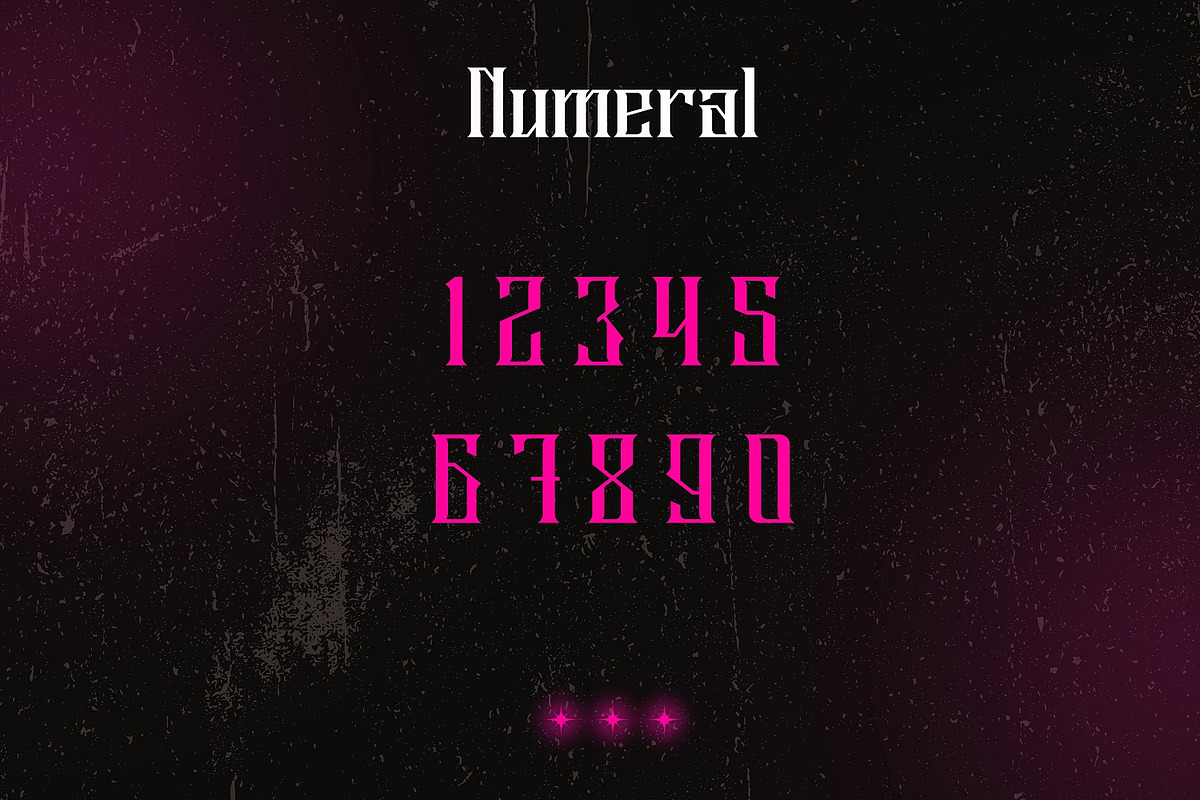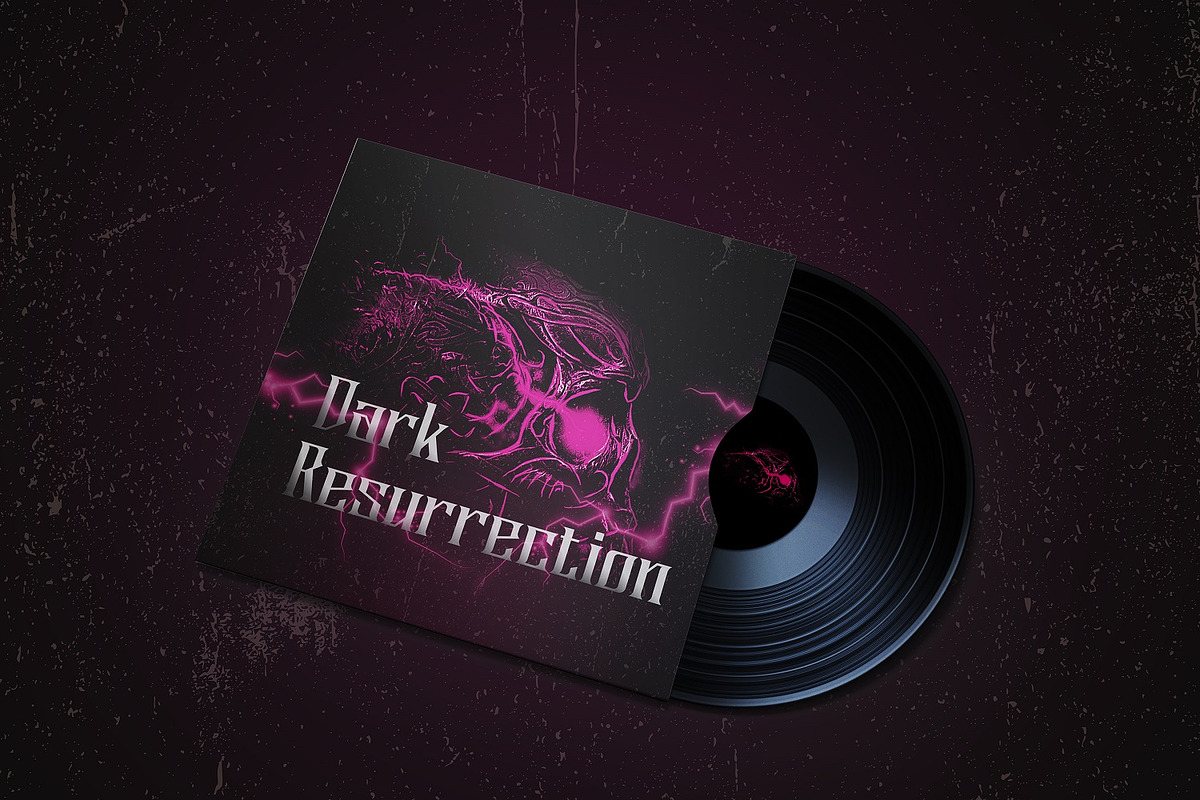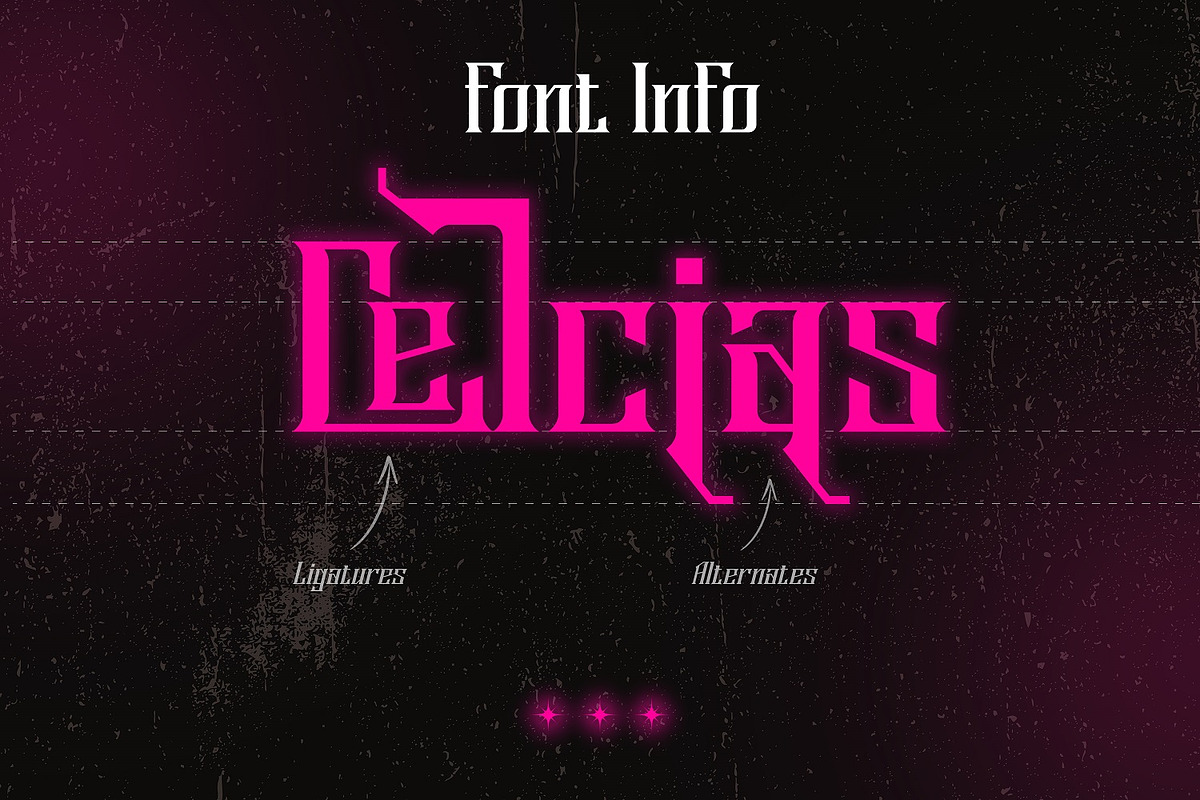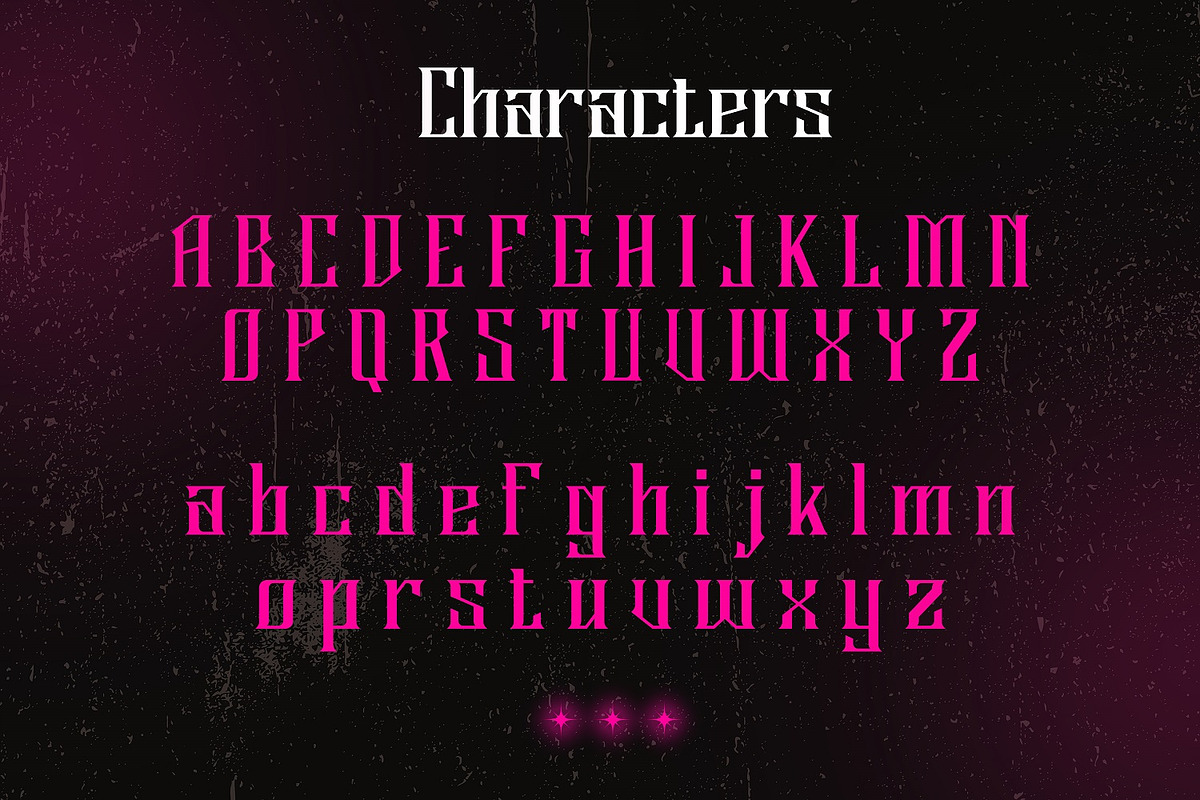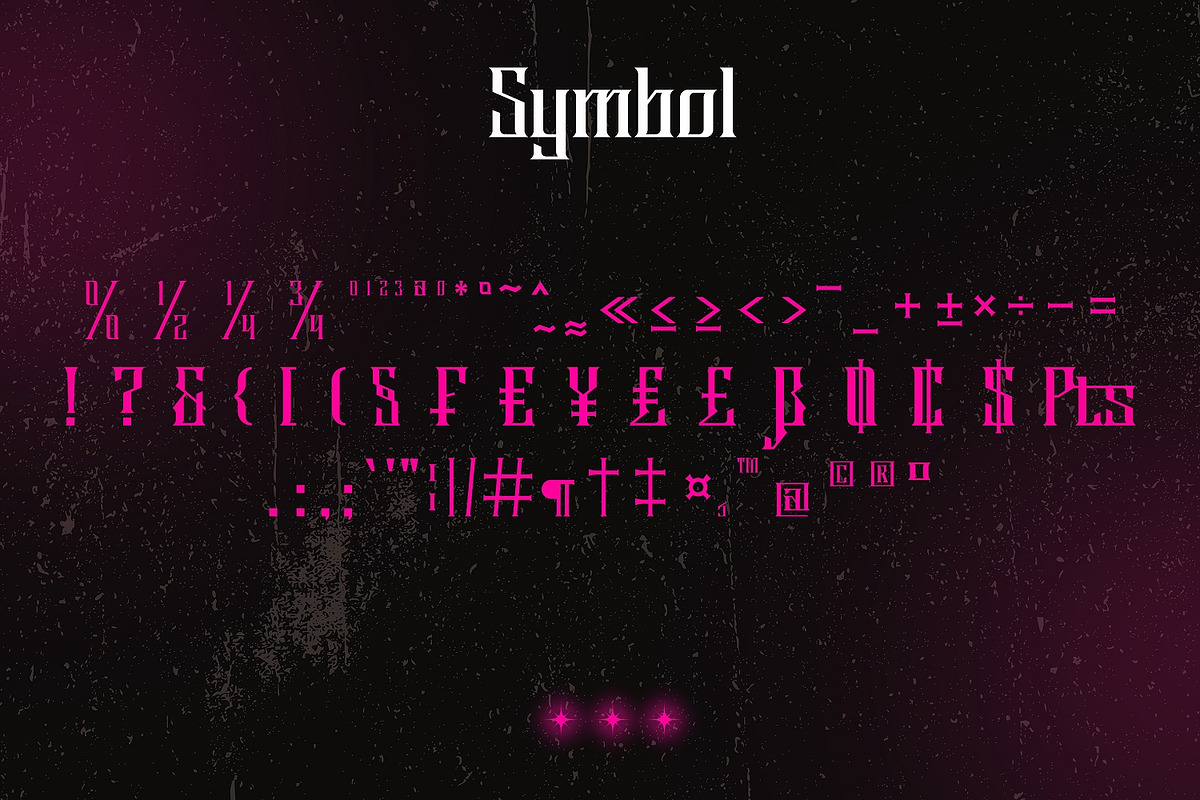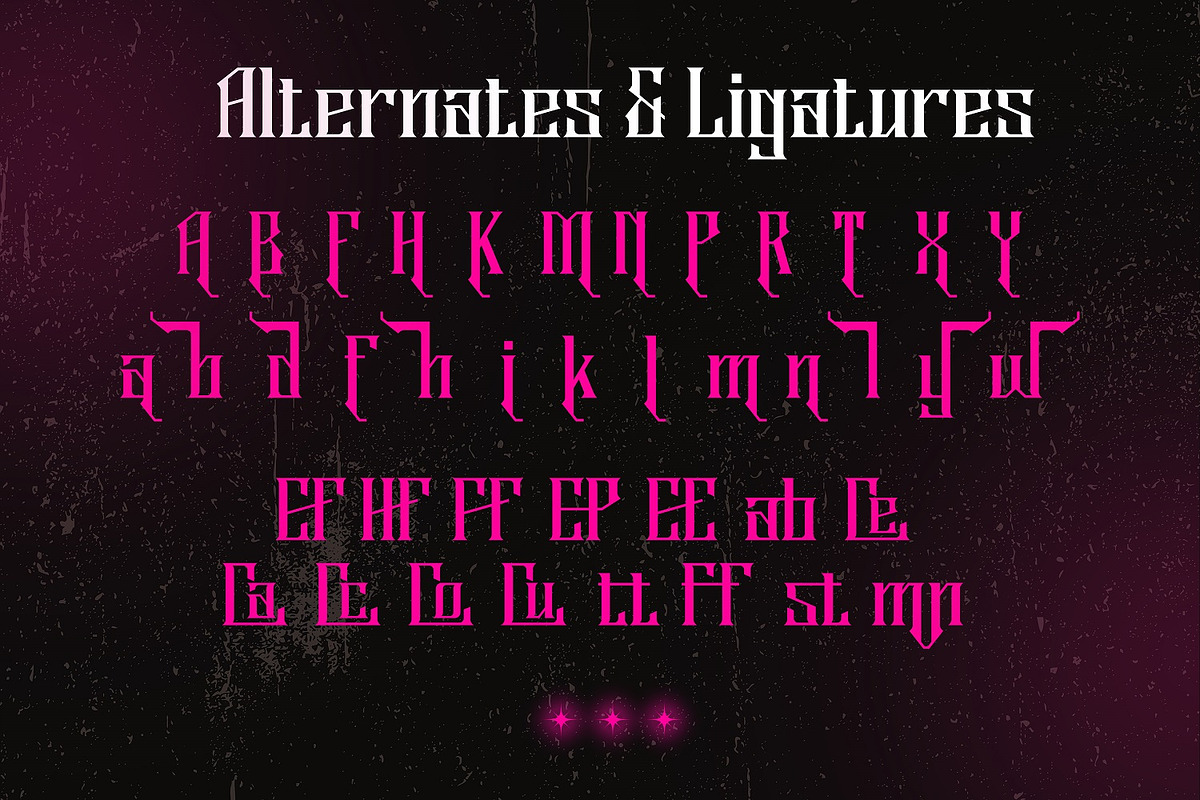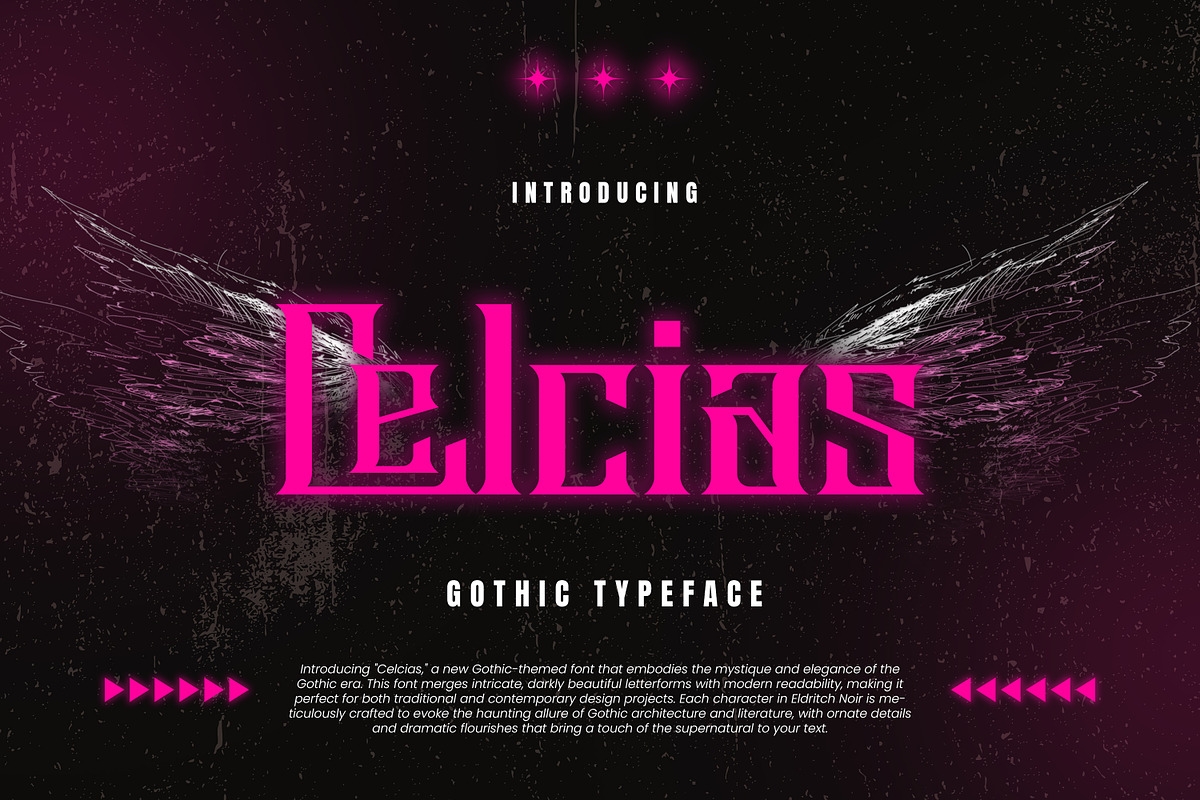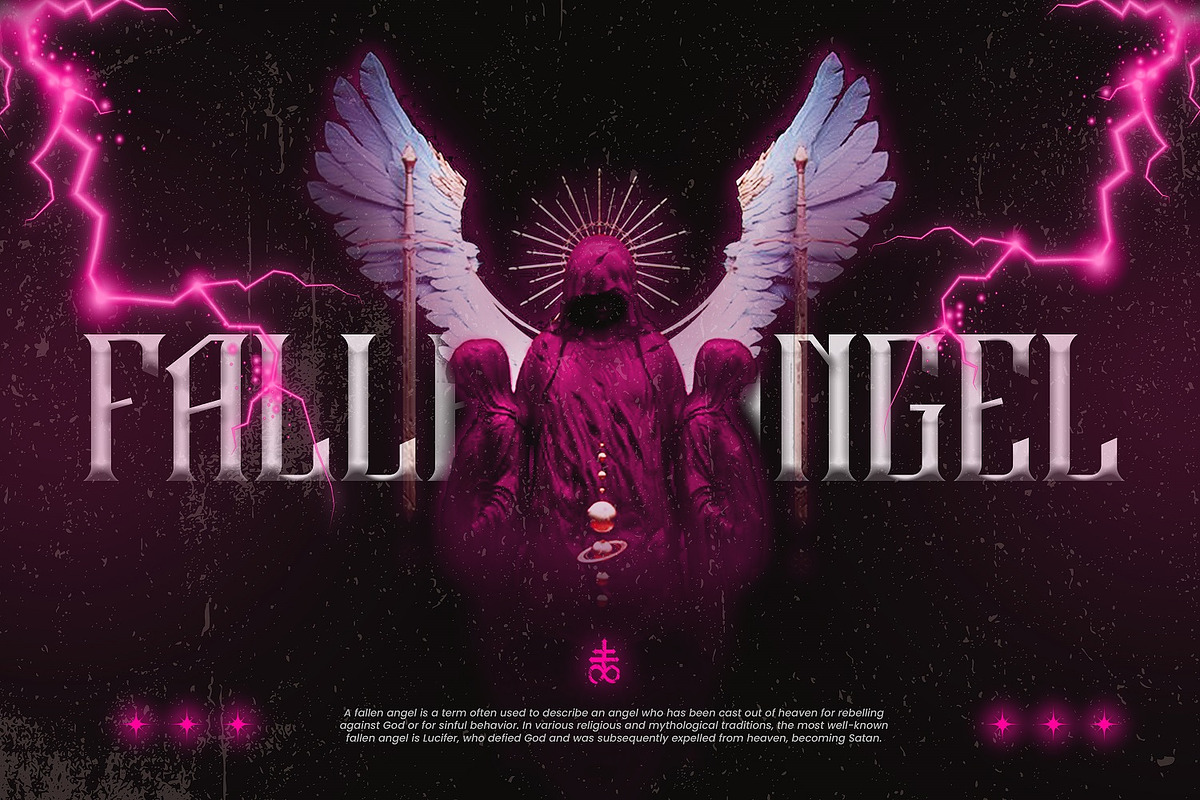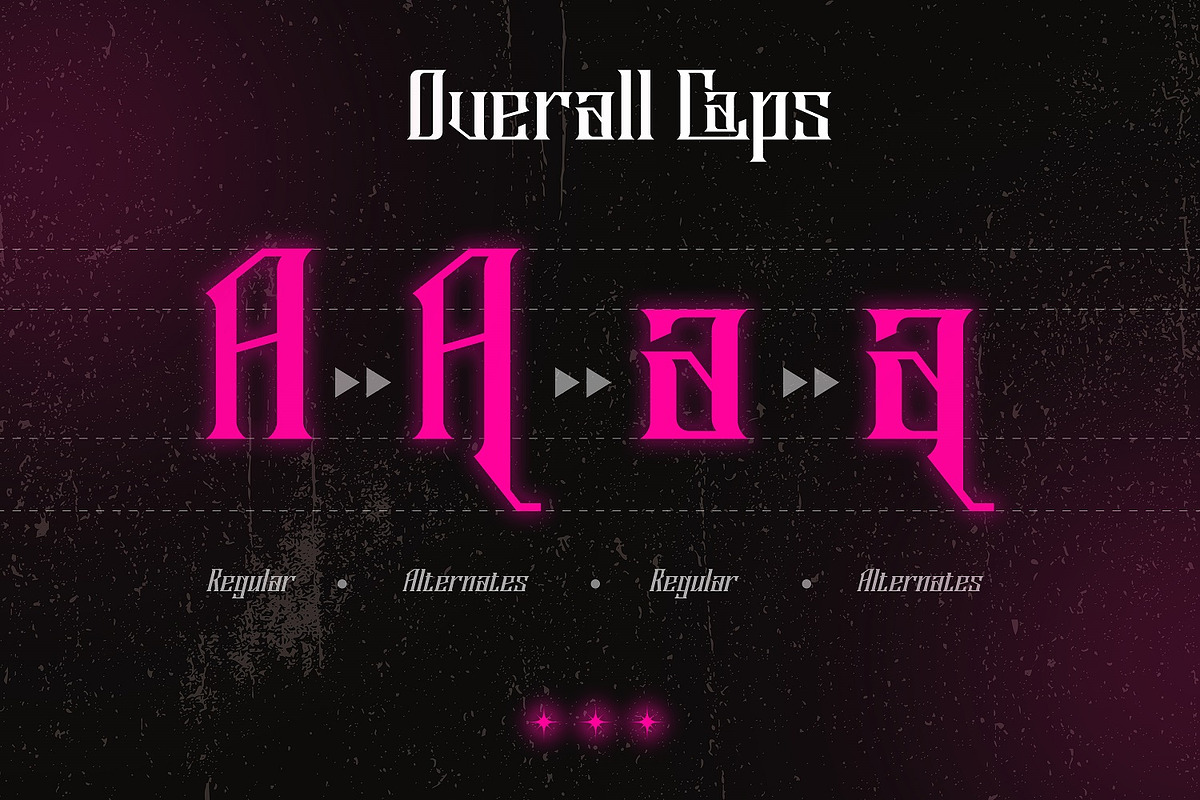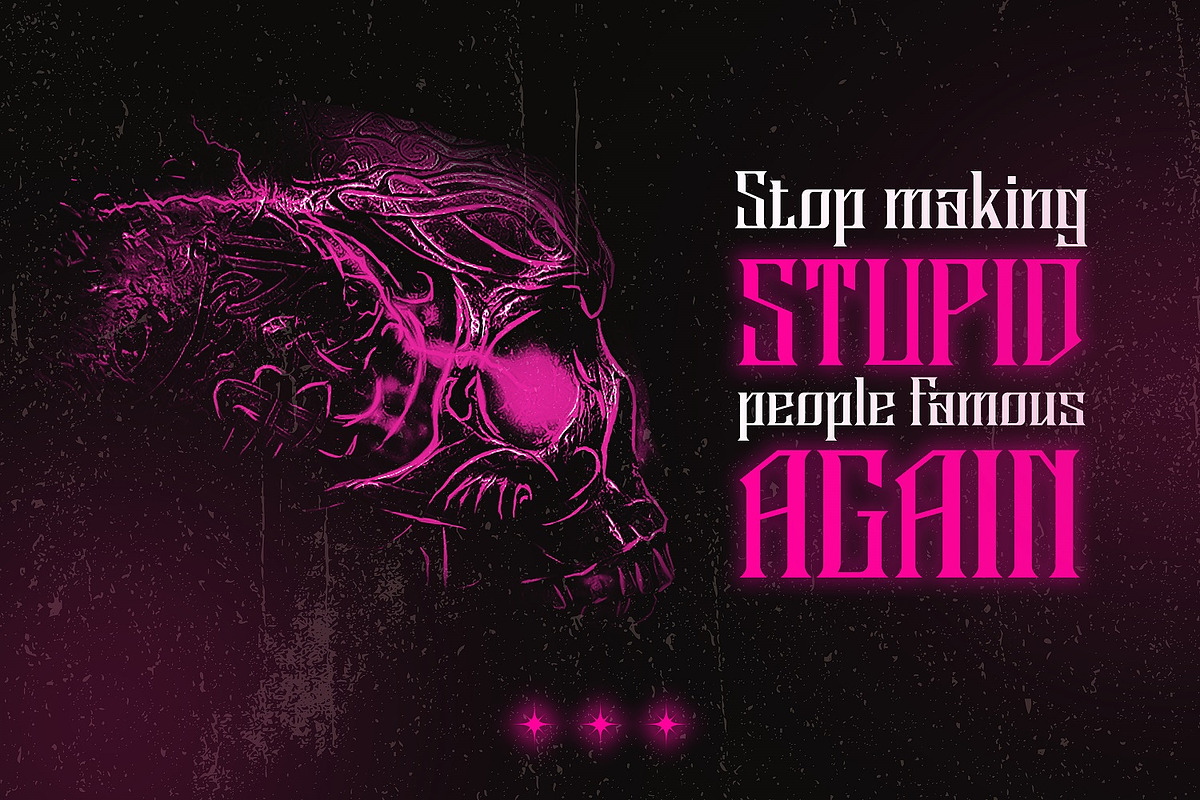
Celcias
Celcias - Modern Gothic Typeface, from Rishsketch Studios, is a premium Serif Font, perfect for any project that requires a distinctive, and premium feel.
- Ligature, Alternate & amp; Multilingu